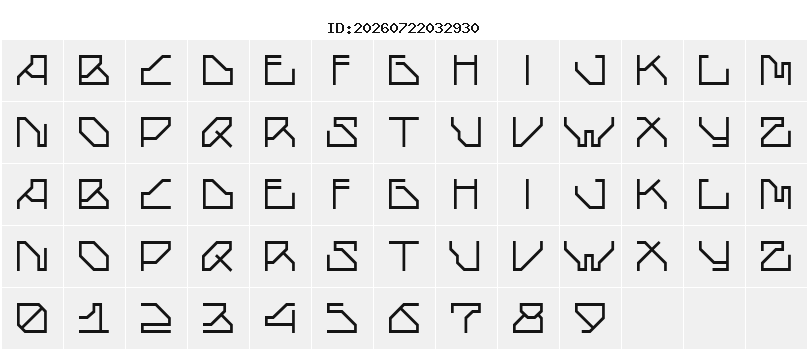
• Font Name: FONTDELIC
• Full Font Name: FONTDELIC
About FONTDELIC.ttf
FONTDELIC.ttf is a modern, elegant sans-serif font designed for ultimate readability and visual harmony. Perfect for branding, headlines, web design, and print materials.